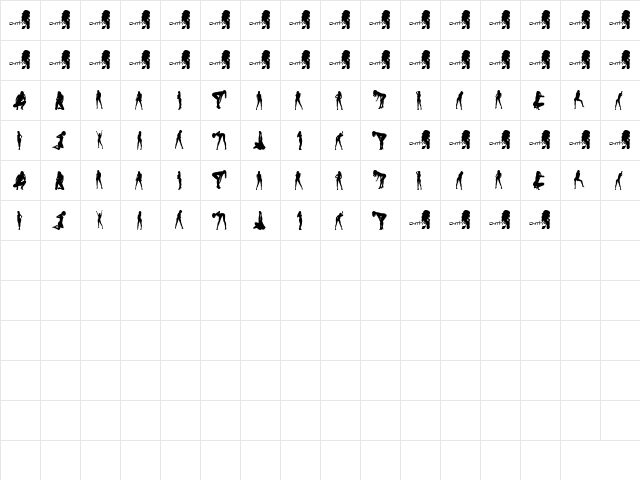
SM_suggestivisM Regular
| Foundry | Dan Meyer (smashmethod) |
| Designer | Dan Meyer (smashmethod) |
Design Context for SM_suggestivisM Typeface
SM_suggestivisM is a composed and adaptable typeface that performs quietly and consistently across a wide range of design contexts.